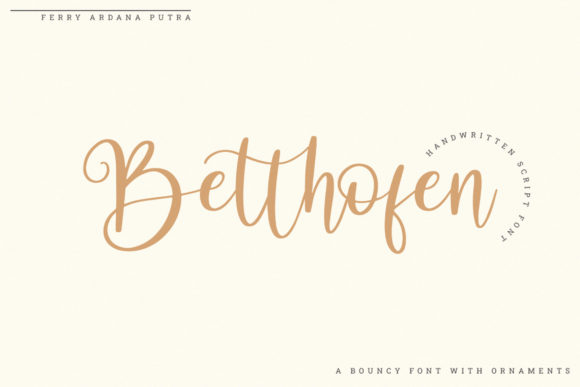
Betthofen: A Romantic Script for Branding Magic
There’s something undeniably charming about a font that feels like it was written by hand, with a touch of elegance and warmth. That’s exactly what I found when I first opened the Betthofen typeface. As I was working on a branding project for a small boutique, I needed a font that could convey both sophistication and approachability. Betthofen immediately caught my eye with its romantic and sweet calligraphy style—characters that dance along the baseline, as if they were drawn with a gentle brushstroke.
A First Impression That Stands Out
I started by placing Betthofen on a rough logo sketch for the boutique. The first thing I noticed was how the font added a sense of personality without overpowering the design. Its flowing curves and soft serifs made it feel like a handwritten note from a friend, which aligned perfectly with the boutique’s vibe—a cozy, artisanal space that welcomed customers like old friends.
As I tested it against other fonts, Betthofen stood out for its versatility. It wasn’t too ornate to be used in headlines, nor was it too plain to serve as an accent. It felt like the perfect middle ground between a display font and a supporting typeface. This made me think about how it could work across different brand elements—from logos to packaging, social media graphics, and even website headers.
Testing Betthofen in Real Design Scenarios
I began incorporating Betthofen into various mockups. On a shop sign, it created a welcoming presence that invited people in. On business cards, it added a touch of elegance without being overwhelming. Even on product labels, it brought a level of charm that made the items feel more personal and curated.
One of the most interesting tests was using Betthofen in a social media post. I paired it with a sans-serif font for the body text and saw how it balanced the visual hierarchy. The script font drew attention to the headline while the clean sans-serif kept the message readable. It was a subtle but effective way to guide the viewer’s eye through the content.
Another moment that made me pause was when I used Betthofen in a flyer for an upcoming event at the boutique. The font’s romantic flair complemented the theme of the event, which was a vintage-inspired evening. It felt like the right choice to evoke nostalgia and warmth without being too gimmicky.
Why Betthofen Works So Well
Betthofen isn’t just visually appealing—it’s also practical. As a PUA-encoded font, it gives designers access to all the glyphs and ligatures, which is a huge plus when working on detailed projects. This means you can customize the font to fit specific needs, whether it’s adding special characters for a foreign language or creating unique ligatures for a brand’s name.
The font’s readability is another standout feature. While it has a decorative quality, it doesn’t sacrifice legibility. This makes it a great choice for both short-form text and longer copy, depending on the context. It’s especially useful for digital applications where clarity is key, such as website headers or email subject lines.
From a brand identity perspective, Betthofen helps create a cohesive and memorable look. It adds a touch of personality that can set a brand apart from competitors. Whether it’s used as a logo font, headline font, or accent font, it brings a consistent visual voice to all brand materials.
Font Pairing and Stylistic Flexibility
When pairing Betthofen with other fonts, I found that it worked best with serif and sans-serif fonts that have a clean, modern feel. For example, pairing it with a geometric sans-serif like Montserrat or a classic serif like Georgia created a nice contrast that highlighted Betthofen’s romantic charm.
It also pairs well with other script fonts, though I recommend using it sparingly to avoid overwhelming the design. In some cases, using Betthofen as an accent font—like in a tagline or a signature—can add a nice touch without distracting from the main message.
For digital projects, I recommend testing Betthofen in different formats and sizes to ensure it looks great across platforms. It’s important to check the included styles, weights, and alternates to see what options are available for your specific project.
Practical Tips for Using Betthofen in Client Work
If you’re considering Betthofen for a client project, there are a few things to keep in mind. First, always test the font in different contexts before committing to it in a full brand system. This means checking how it looks on print materials, digital assets, and even merchandise.
Second, make sure to communicate the font’s strengths and limitations to your client. While Betthofen is versatile, it might not be the best choice for every situation. For example, it’s not ideal for long blocks of text due to its decorative nature. However, it excels in headlines, logos, and visual accents.
Overall, Betthofen has become a go-to font in my toolkit for branding projects that require a touch of romance and elegance. Its ability to balance beauty with functionality makes it a valuable asset for designers looking to create meaningful, memorable brand identities.
Whether you’re designing for a boutique, a skincare brand, or a creative studio, Betthofen offers a unique blend of style and practicality. It’s a font that speaks to the heart of good design—where aesthetics meet purpose.